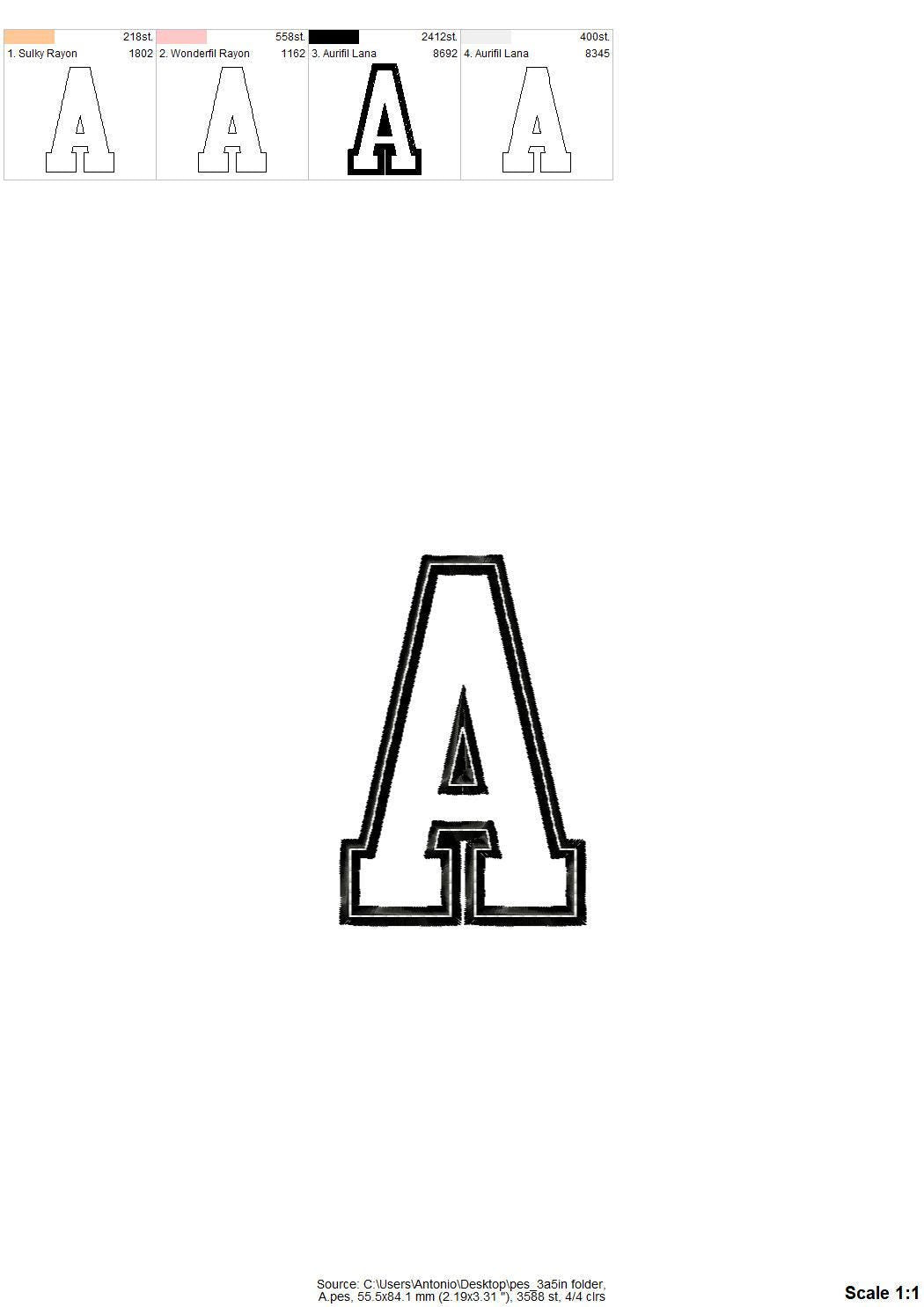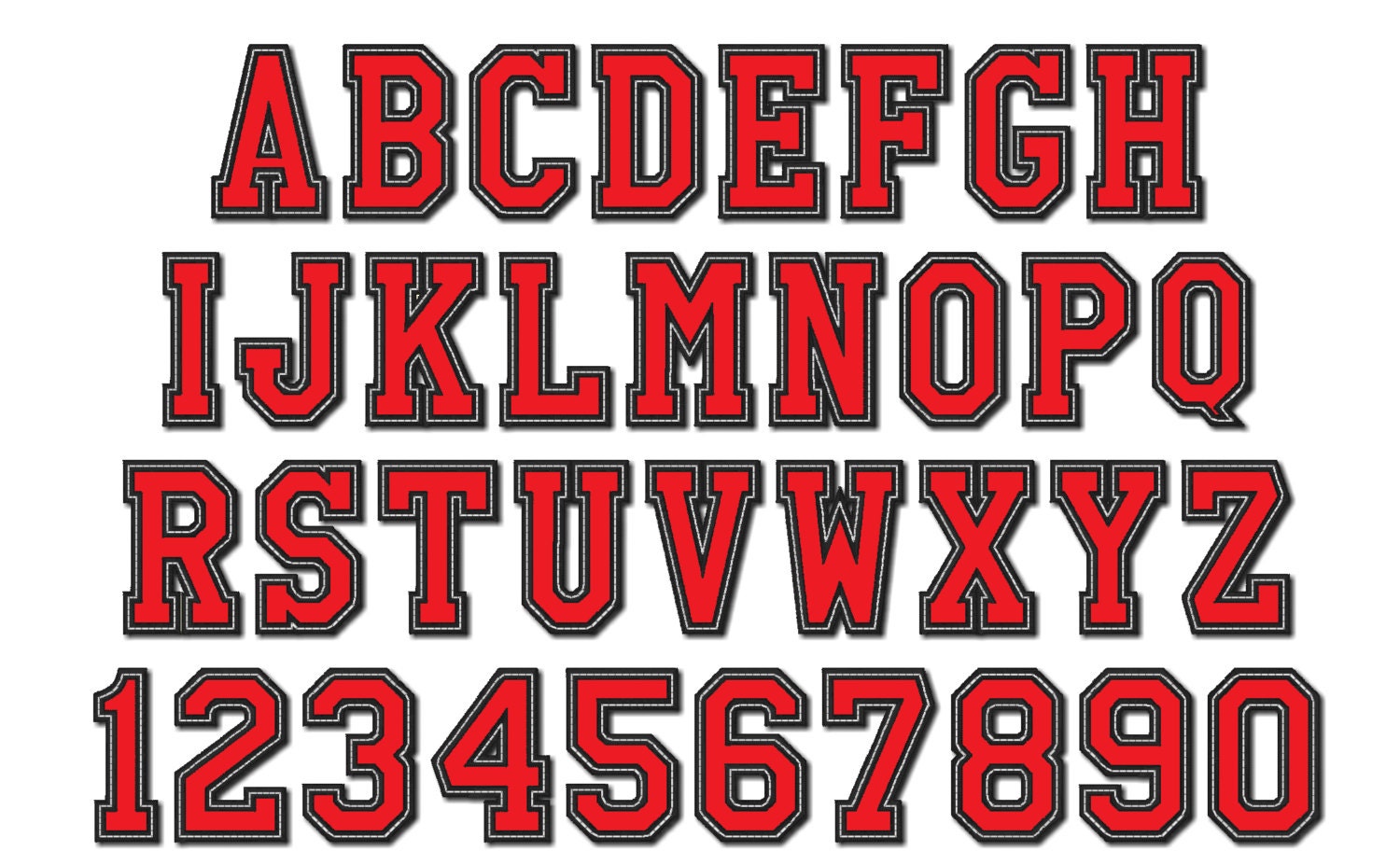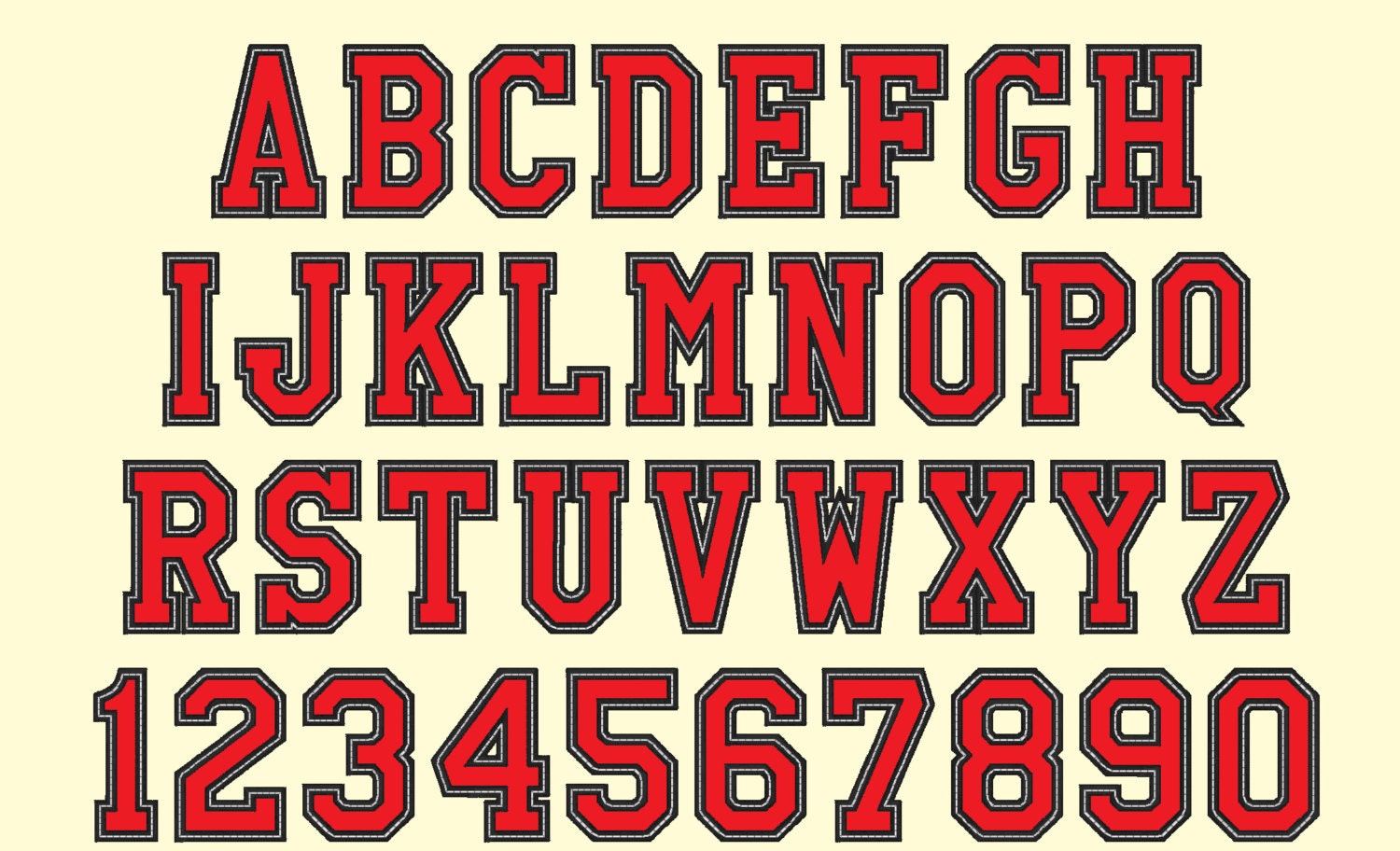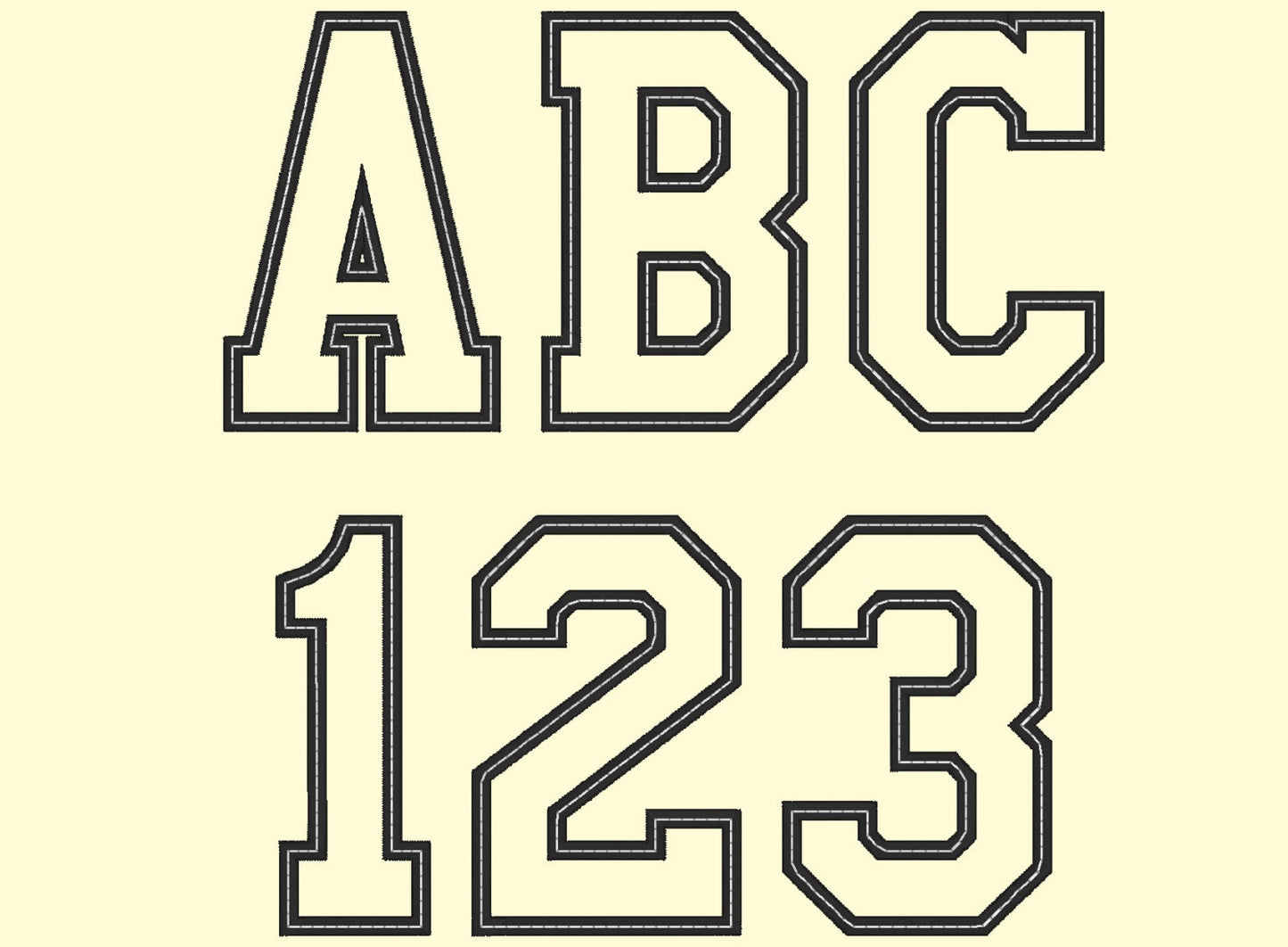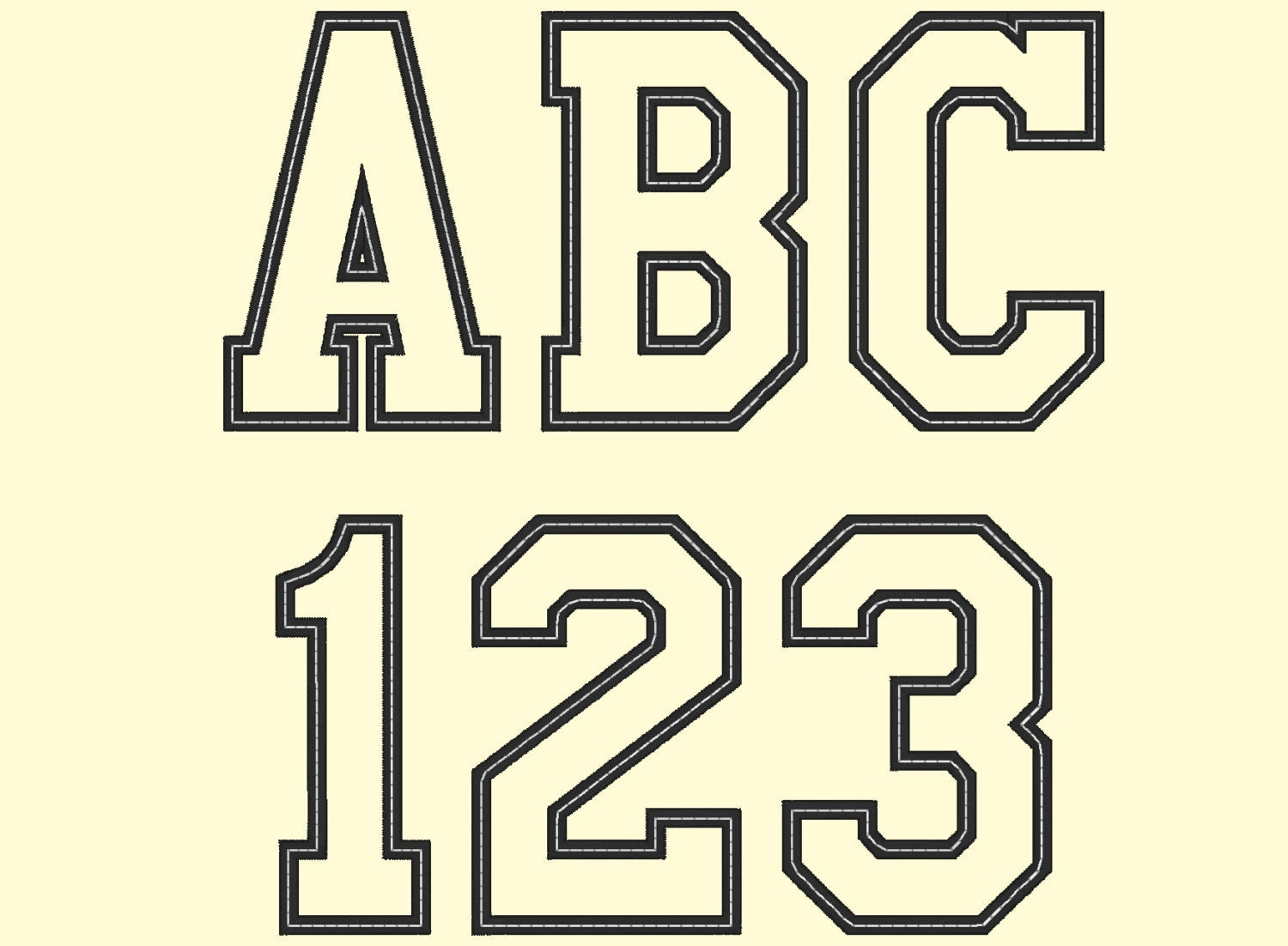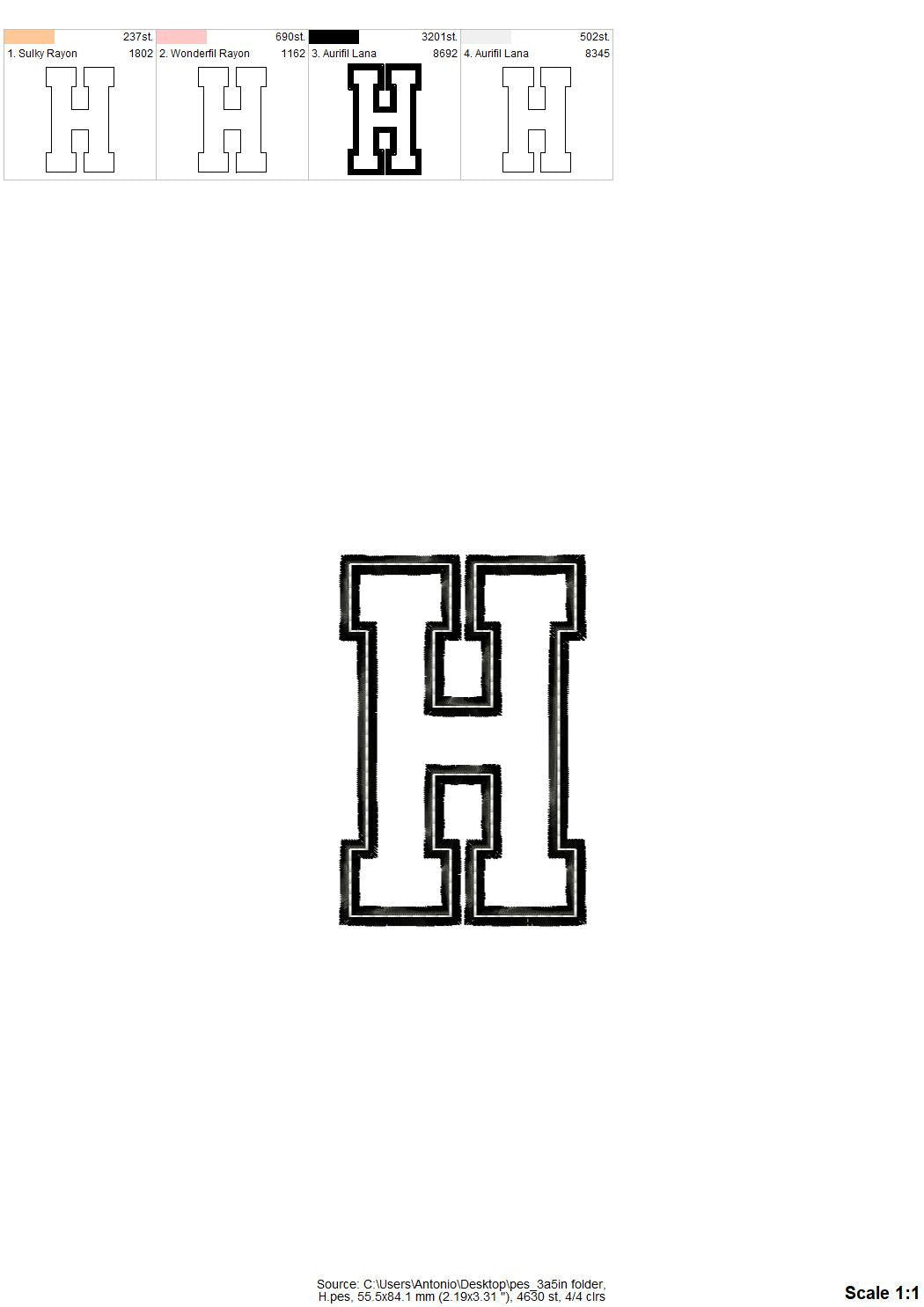
Athletic Sport High School Team Font Applique
Included: Uppercase A-Z, Numbers 0-9, Punctuation
A classic athletic applique font for high school team letters. Made for jerseys, team shirts, hoodies and sports bags.
Uppercase letters A to Z, numbers 0 to 9 and an ampersand. Six sizes: 2, 3, 3.5, 4, 5 and 6 inches. Wide satin edge with a top bean stitch for a neat look.
• Athletic sport applique font
• Uppercase A to Z, numbers 0 to 9, ampersand
• 6 sizes, 2 to 6 in